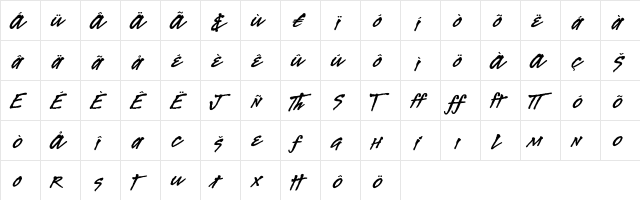
Legault Bold Alternates
Design Context for Legault Typeface
Legault is a composed and adaptable typeface that performs quietly and consistently across a wide range of design contexts. Its bold stroke weight gives it real presence on the page.